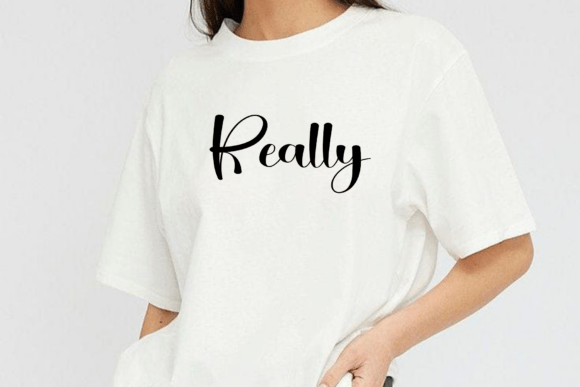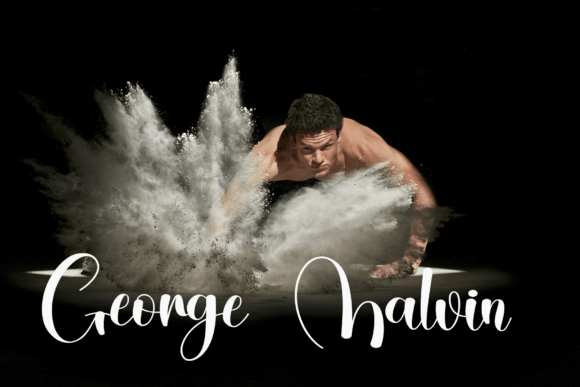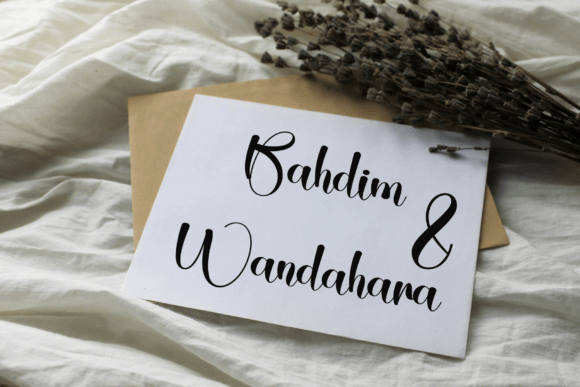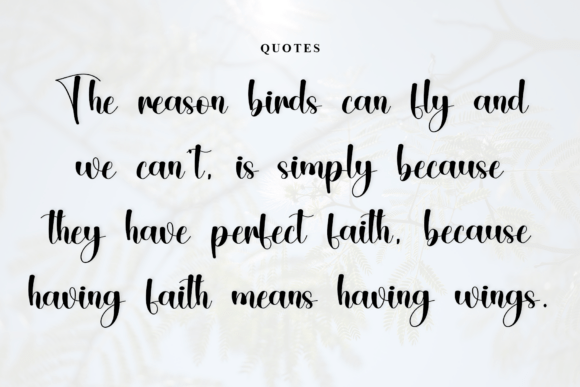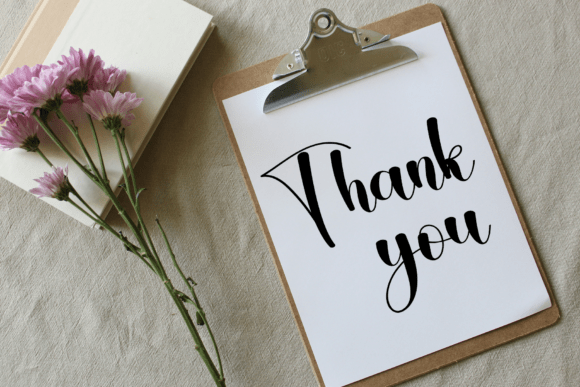
Remember that moment when you finally nailed the design for your favorite brand? The feeling of satisfaction and excitement is all too real, and it’s moments like these that remind us why we love our jobs. For designers, there’s no shortage of tools and resources to help us bring our visions to life, but sometimes it’s the smallest details that make all the difference.
Enter the Beautyday Font, a charming handwritten font that’s sure to add a touch of warmth and personality to any design project. With its fluid strokes and organic lines, Beautyday Font is perfect for branding, invitations, and social media graphics. Whether you’re a seasoned pro or just starting out, this font is a valuable addition to your toolkit, offering a fresh and casual elegance that’s hard to resist.
Beautyday Font Key Features
- Font Family: Beautyday Font offers a unique, elegant script font ideal for various design applications.
- Unique Characteristics: Features a delicate, handwritten style with subtle flourishes and connections between letters, adding a touch of elegance to any design.
Beautyday Font Review
As a designer, I was excited to dive into the Beautyday Font and see what it has to offer. Overall, I was pleasantly surprised by its clean and modern aesthetic.
- ✨ Elegant and sophisticated feel: The Beautyday Font has a beautiful, high-end look that would be perfect for luxury brands or fashion-forward designs.
- ✨ Excellent legibility: The font is clear and easy to read, making it suitable for both digital and print applications.
- ✨ Stylish alternates: The font comes with a range of stylish alternates that add a touch of personality to your design.
- ⚠️ Limited language support: The Beautyday Font may not be suitable for designs that require a wide range of languages, as it only supports a limited number of scripts.
- ⚠️ May not be suitable for small text sizes: While the font is legible, it may become difficult to read at very small text sizes.
Overall, I would give the Beautyday Font a solid 4 out of 5 stars. While it has some limitations, its clean design and stylish alternates make it a great choice for designers looking to add a touch of sophistication to their work.
Getting the Most Out of Beautyday Font
To get the most out of Beautyday Font, use it for headings and titles to create a visually appealing contrast with the body text. Experiment with different font sizes and styles to create a unique look. You can also pair Beautyday with other fonts to create a harmonious typography.
Beautyday Font is ideal for creating eye-catching headings, titles, and labels. It’s perfect for use in branding, advertising, and graphic design projects. You can also use it to create a unique and stylish look for your blog or website.
Alternatives to Beautyday Font
Ostrich Sans is a modern sans-serif font designed by Tobias Frere-Jones. It is perfect for use in digital media, including websites, apps, and video games. Ostrich Sans is more geometric and structured compared to Beautyday Font, making it ideal for clean and minimalist designs.
Lato is a sans-serif font designed by Łukasz Dziedzic. It is a highly versatile font that can be used in a wide range of applications, from digital media to print materials. Lato is more elegant and refined compared to Beautyday Font, making it suitable for luxury brands and high-end designs.
Montserrat is a sans-serif font designed by Julieta Ulanovsky. It is inspired by the urban landscape of Montserrat, a mountain range in Argentina. Montserrat is more condensed and energetic compared to Beautyday Font, making it ideal for headlines and titles in digital media.